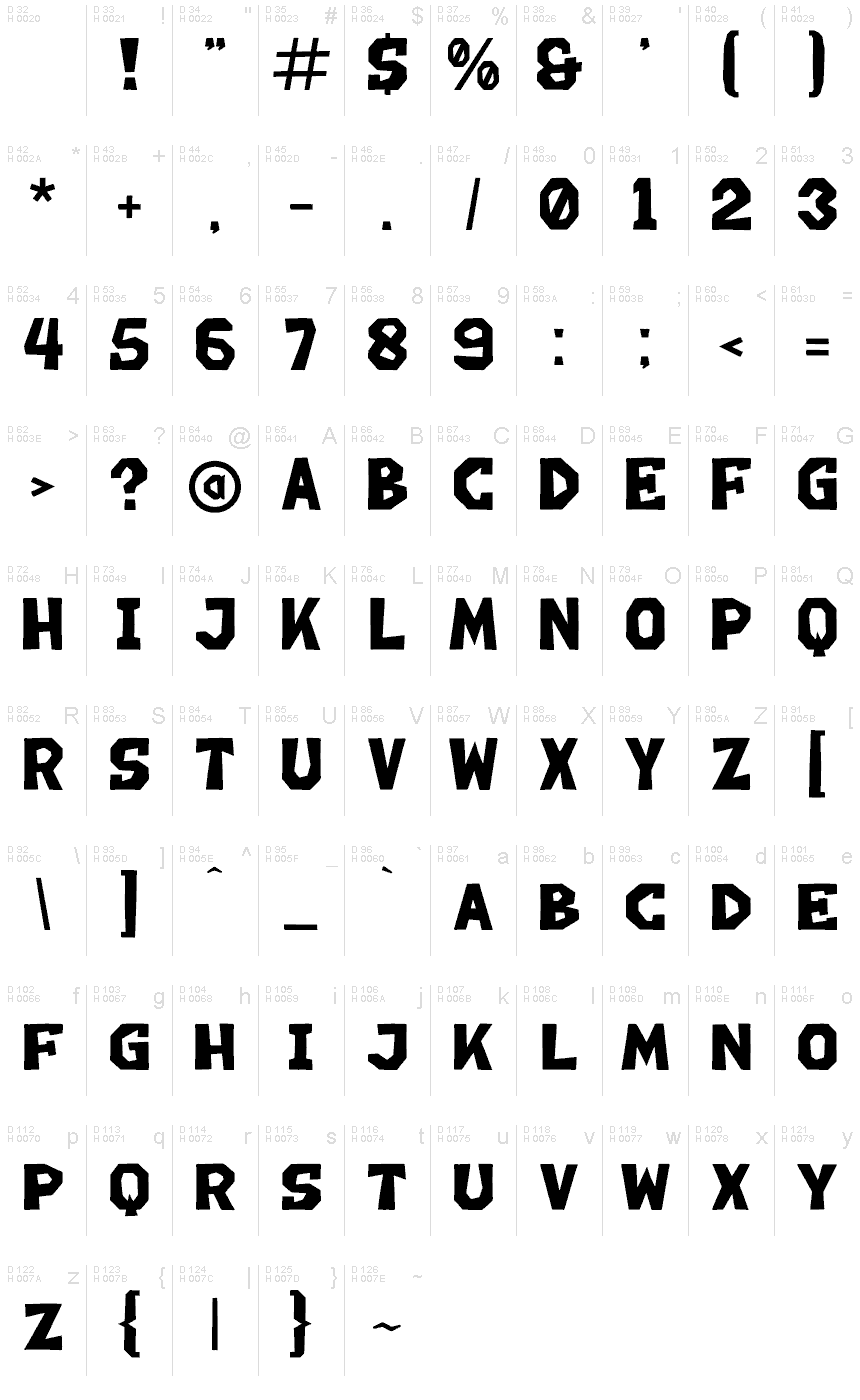
GORINE FLUMS
Gorine Flums font is a whimsical cartoon display typeface designed by Storytype Studio. This bold font has a rugged and geometric aesthetic that gives it a bold assertive appeal. Gorine Flums is perfect for users who need blocky and simple letters inspired by modernist influence for unusual use cases. By its simplicity, Gorine Flums shines in context; with the right backdrop or picture, it’s capable of creating marvelous results.
Introduce this free display font to children’s book covers, headlines, video thumbnails, gadget packaging design, postcards, advertisements ideas, greeting cards decorations and much more.